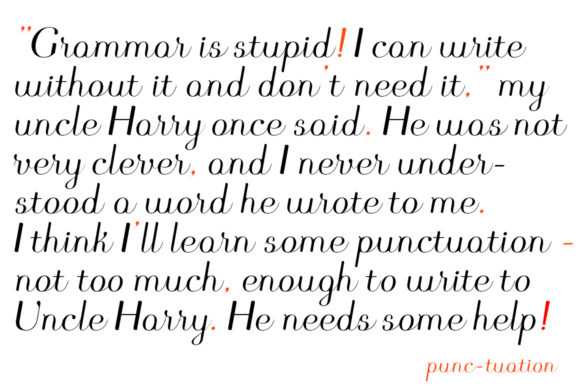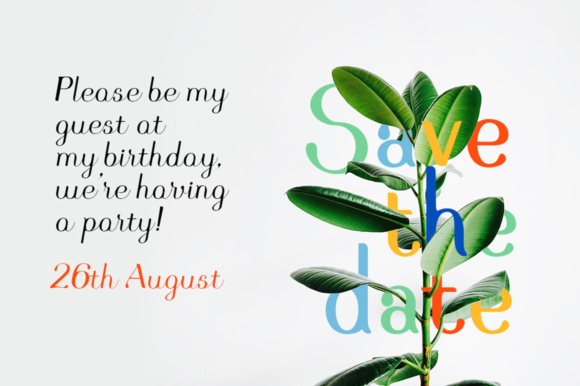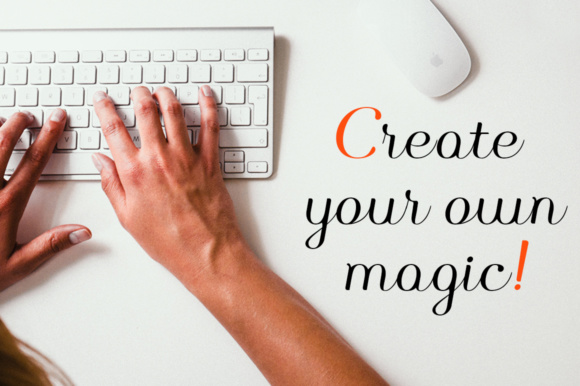
Introduction to Pedrera Font
Pedrera is a bold and casual vintage typeface, perfect for giving your designs an organic and approachable feel.
👤 Author Etewut
This font looks great in both vintage and modern designs, and adds an editorial vibe to your work .
Key Features of Pedrera Font
Why Choose Pedrera Font?